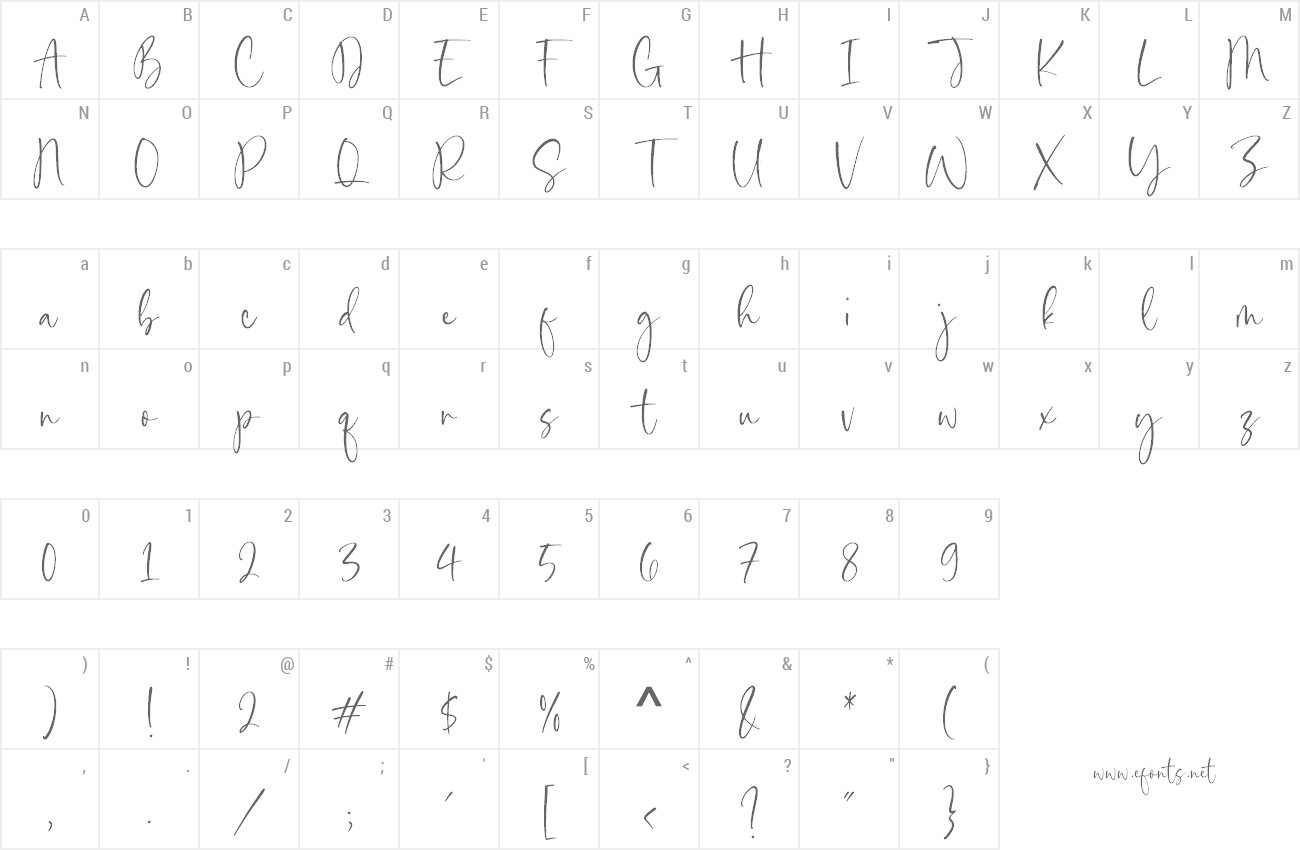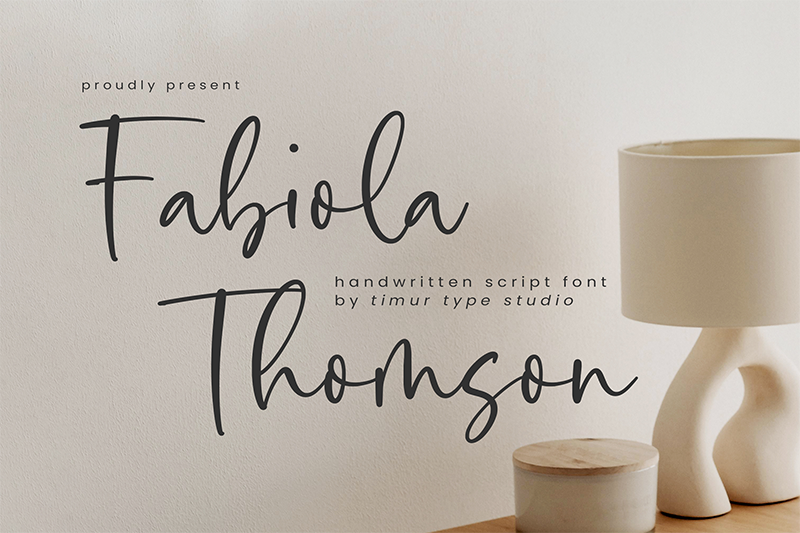
| Font name: | Fabiola Thomson |
| Author: | Timur Type |
| Note by Timur Type | |
Introduced by Timurtype Studio! Fabiola Thomson is a Handwritten Script Font This font is a charming and enchanting choice for your design projects. With its beautiful and graceful letterforms, this font exudes elegance and sophistication. The hand-drawn details and delicate strokes add a sense of individuality and personal touch to any text. The Fabiola Thomson font is perfect for creating wedding invitations, logos, and branding materials that require a touch of romance and femininity. Its whimsical and artistic style will captivate your audience, bringing a sense of beauty and enchantment to your designs. Embrace the elegance of the Fabiola Thomson handwritten script font and let your creativity soar. These fonts include: OTF TTF WOFF Fabiola Thomson Font also supports multilingualism. Fabiola Thomson Font features premium : -Full Set of standard alphabet and punctuation By installing or using this font, you are agree to the Product Usage Agreement: � This demo font is ONLY for PERSONAL USE. NO COMMERCIAL USE ALLOWED! � Here is the link to purchase full version and commercial license: https://timurtype.com/product/fabiola-thomson/ � For Corporate use you have to purchase Corporate license timurtype.studio@gmail.com More... |